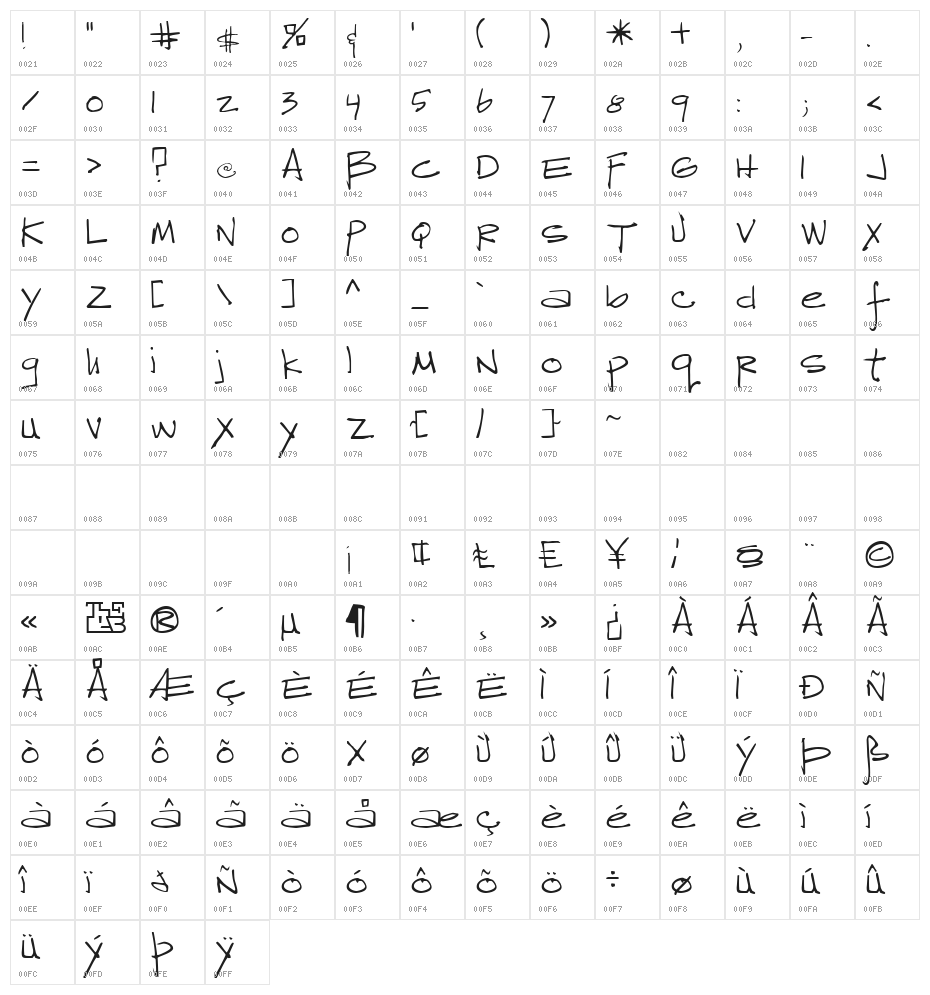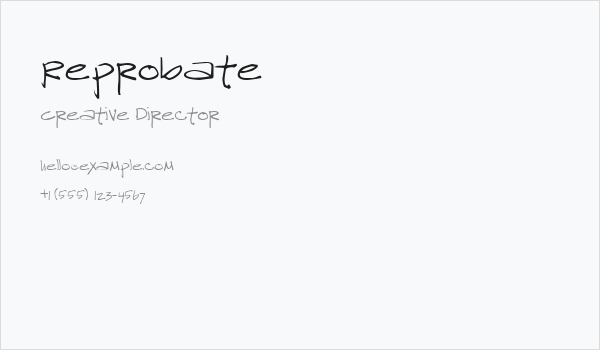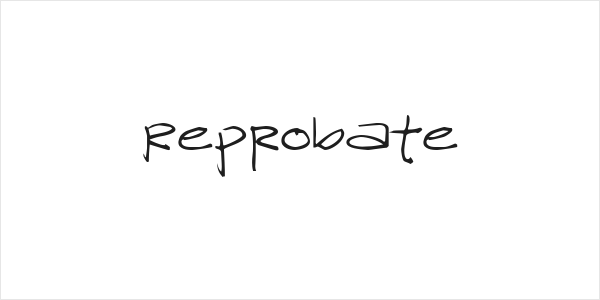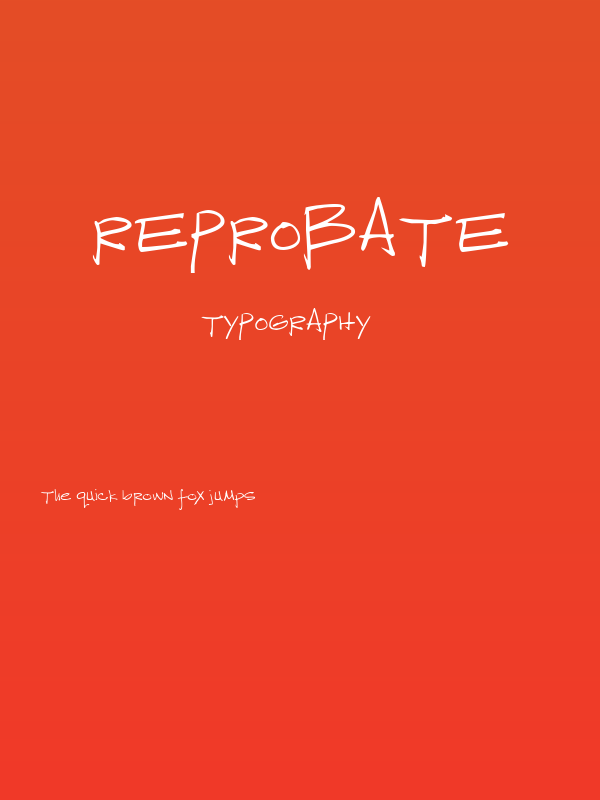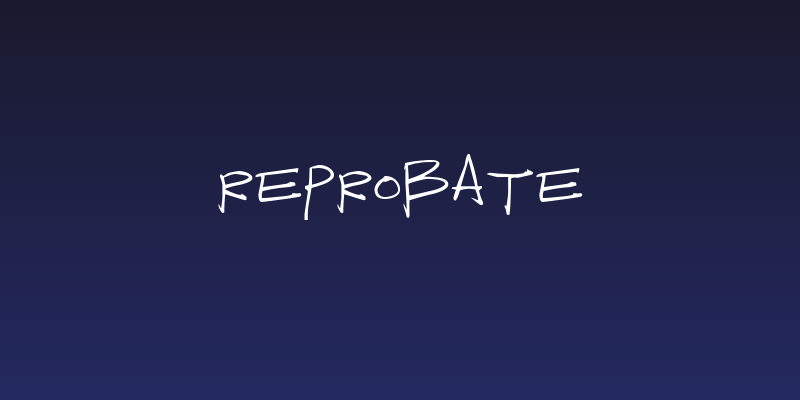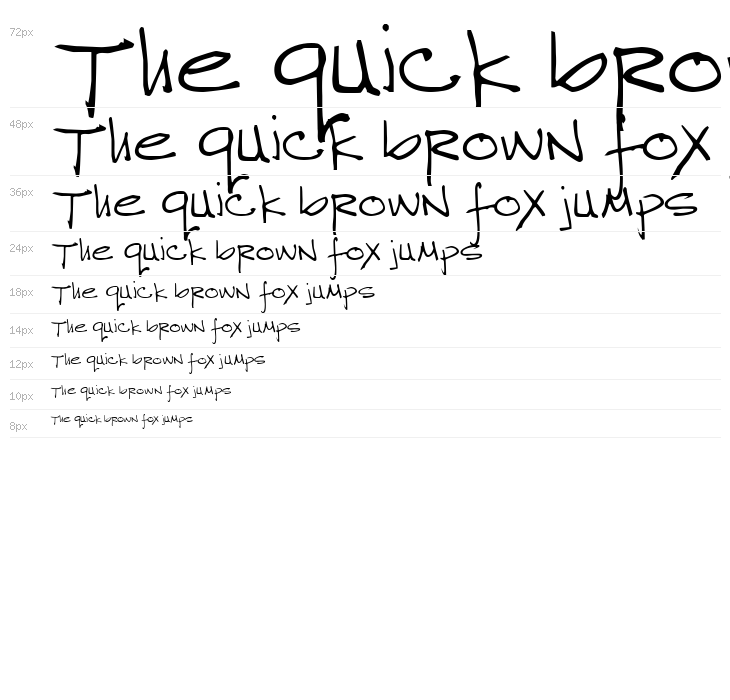
Reprobate Font
Reprobate Description
This font exhibits a dynamic and energetic handwritten style, characterized by its irregular strokes and playful, casual appearance. The letters are slightly slanted, giving a sense of movement and spontaneity. The uppercase and lowercase letters maintain a consistent style, with some letters featuring unique, quirky elements, such as the looped 'g' and the distinctive 'k'. The numerals and special characters follow the same lively and informal aesthetic, making the font suitable for projects that require a personal touch. The overall impression is one of creativity and individuality, perfect for designs that aim to convey a sense of fun and informality.
| Use Case | Logos, Headlines, Informal Text |
| Proposed Projects | Ideal for greeting cards, personal blogs, children's books, and creative branding projects. |